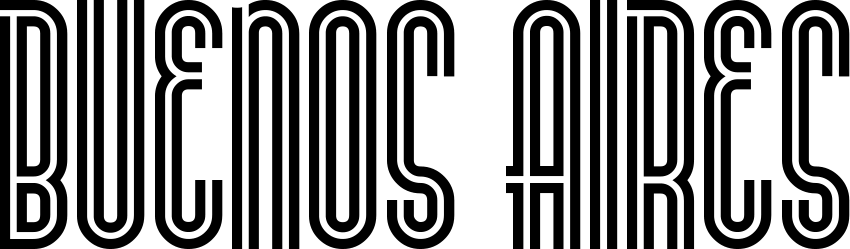
Buenos Aires NF Font
If you want to add a vintage theme to your writing design, stay with us to present you with the best. Here is the Buenos Aires NF retro font with a fancy and tall design as a nice option to work in logos, headers, websites, branding, movies, and more.
This font with its old design can give off vintage and classical vibes. Don’t use this neon font for body text because it’s unreadable. Download it right now and enjoy!